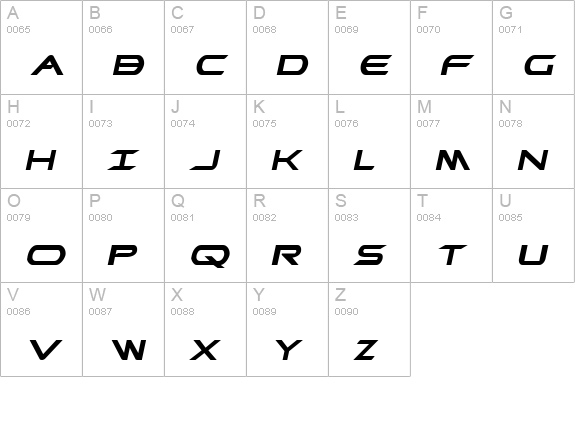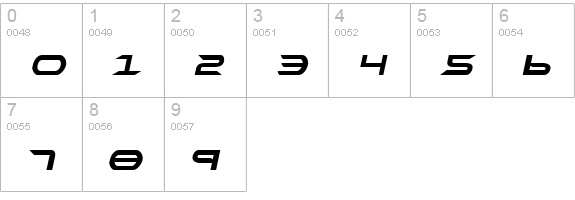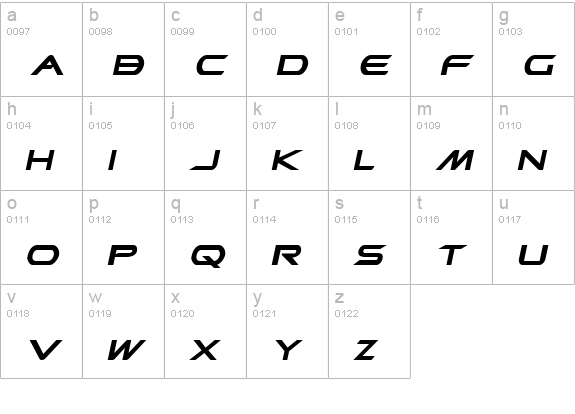
Promethean Bold ExpItalic is a strong, high-contrast variant in the Promethean typeface family \xE2\x80\x94 well suited to headlines, attention-grabbing titles, and strong calls-to-action.
Promethean Bold ExpItalic is an exquisite and striking font that exudes confidence and sophistication. Its bold and italic design adds a touch of elegance to any project, making it perfect for headers, titles, and other prominent text. The sharp edges and clean lines of this font make it highly versatile and suitable for a wide range of design applications. What makes Promethean Bold ExpItalic even more appealing is the fact that it is available for free download at FontsMarket.com. This means that you can enhance your designs with this premium font without any cost involved. Whether you're a professional designer looking to elevate your work or a hobbyist wanting to add a touch of flair to your projects, Promethean Bold ExpItalic is the perfect choice. Download it today and unleash your creativity with this stunning font.